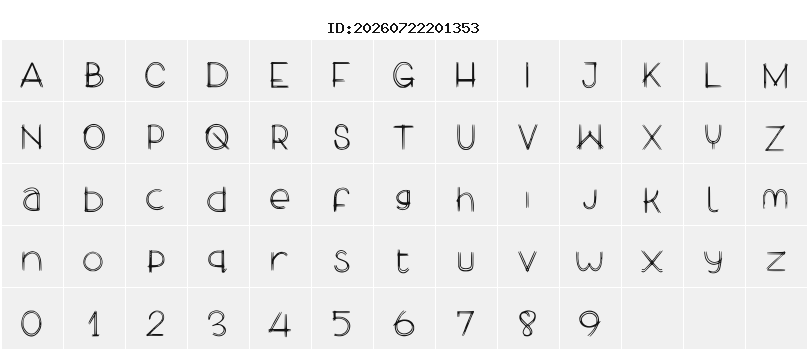
• Font Name: MyLekpaGirlfriend
About MyLekpaGirlfriend.ttf
MyLekpaGirlfriend.ttf is a modern, elegant sans-serif font designed for ultimate readability and visual harmony. Perfect for branding, headlines, web design, and print materials.